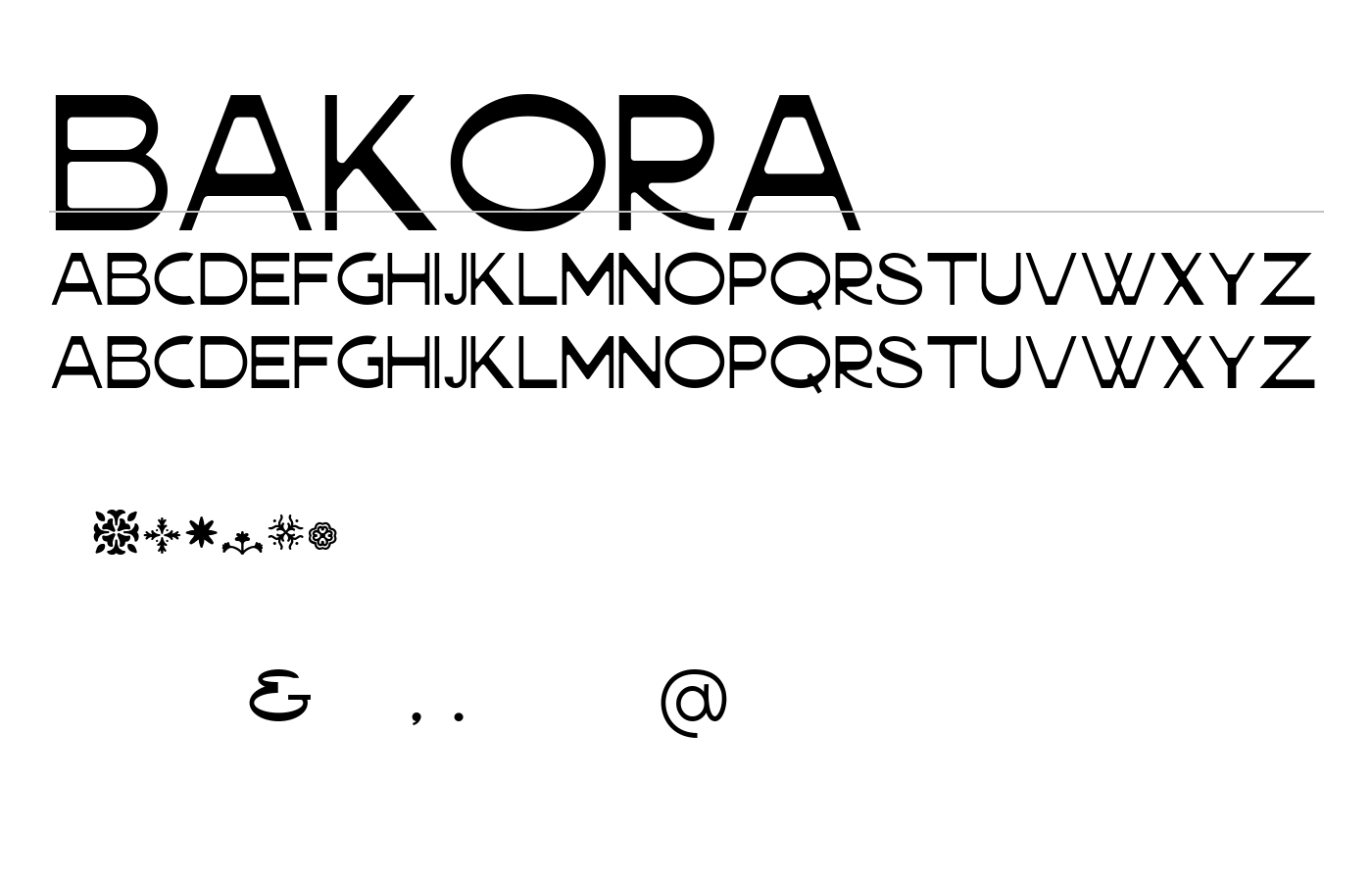
Bakora is a modern sans serif font with a clean, geometric design and subtle artistic touches that give it a unique character. Its variation in weight and some unusual letterforms, like the rounded 'O' and distinctive 'R' tail, add elegance and personality, making it ideal for stylish branding, headlines, and editorial use where a contemporary yet sophisticated look is desired. This font works well for fashion, luxury, and creative industries thanks to its blend of clarity and decorative flair.
Bakora Font
About Bakora Font
| Font family | Bakora Font |
| Designer | Putu Dody Permana |
| Trademark | Hishand Studio |